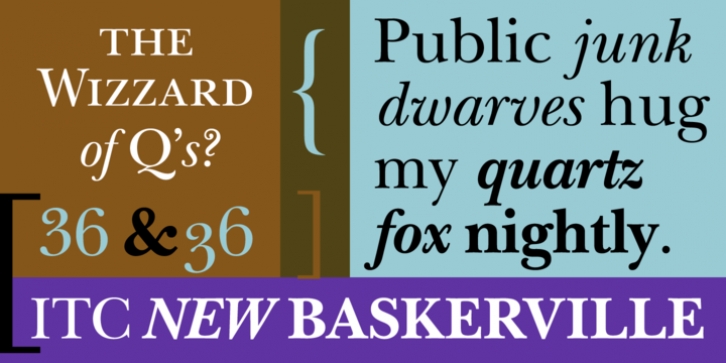
British printer John Baskerville of Birmingham created the types that bear his name in about 1752. George Jones designed this version of Baskerville for Linotype-Hell in 1930, the International Typeface Corporation licensed it in 1982. An excellent text typeface, this Baskerville design has a delicacy and grace that come from long, elegant serifs and the subtle transfer of stroke weight from thick to very thin.